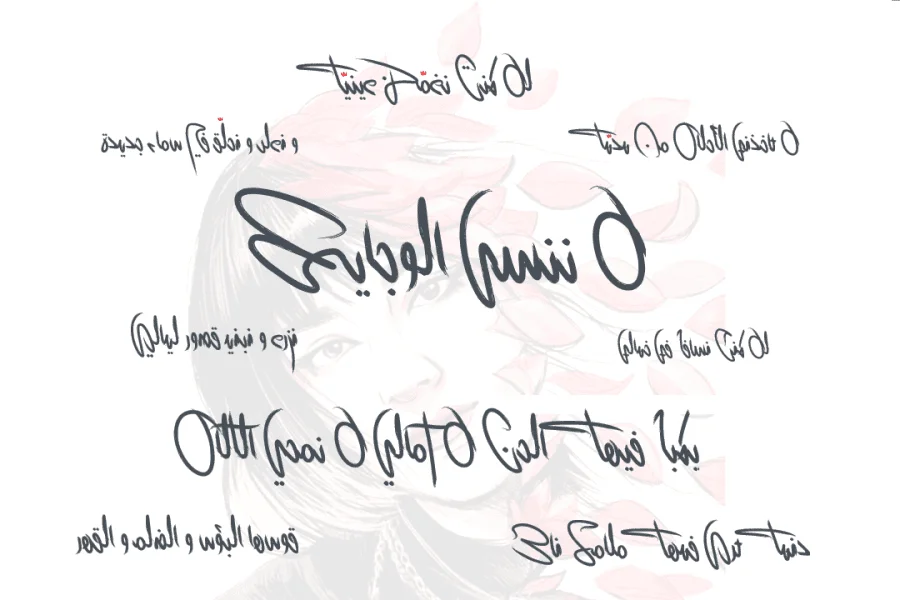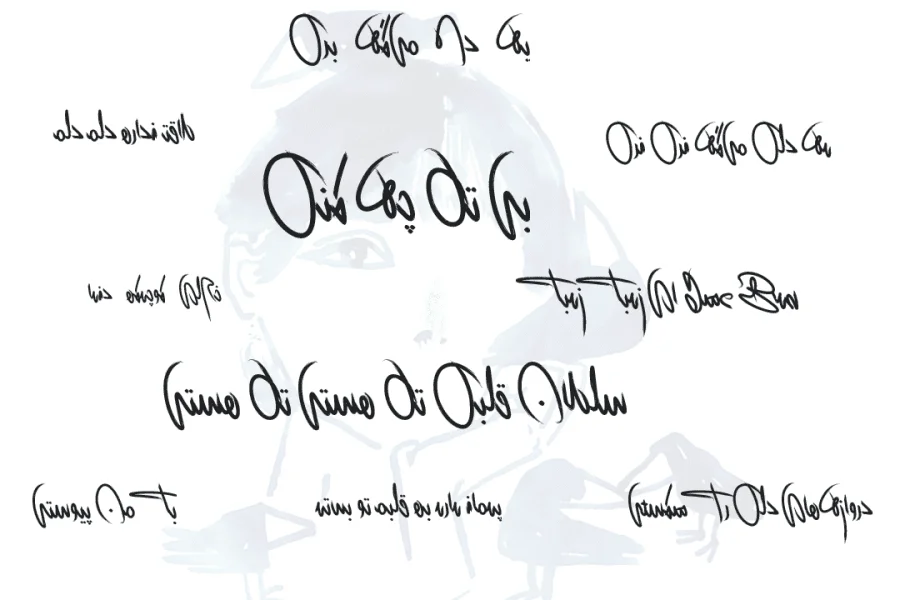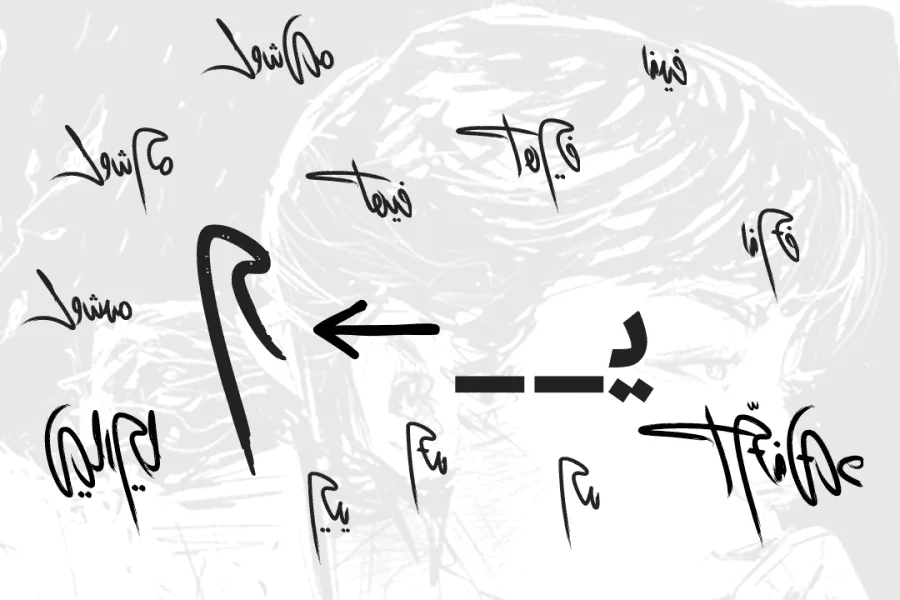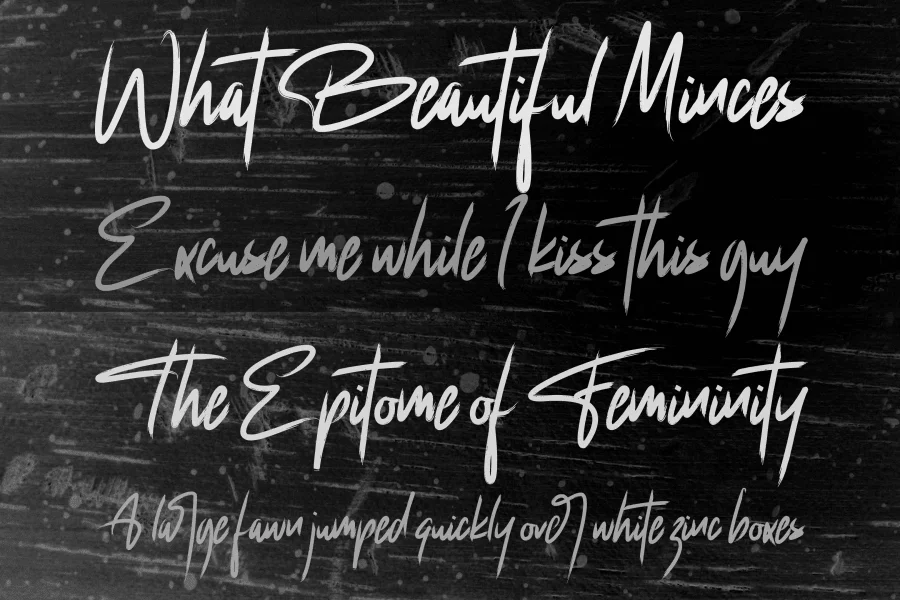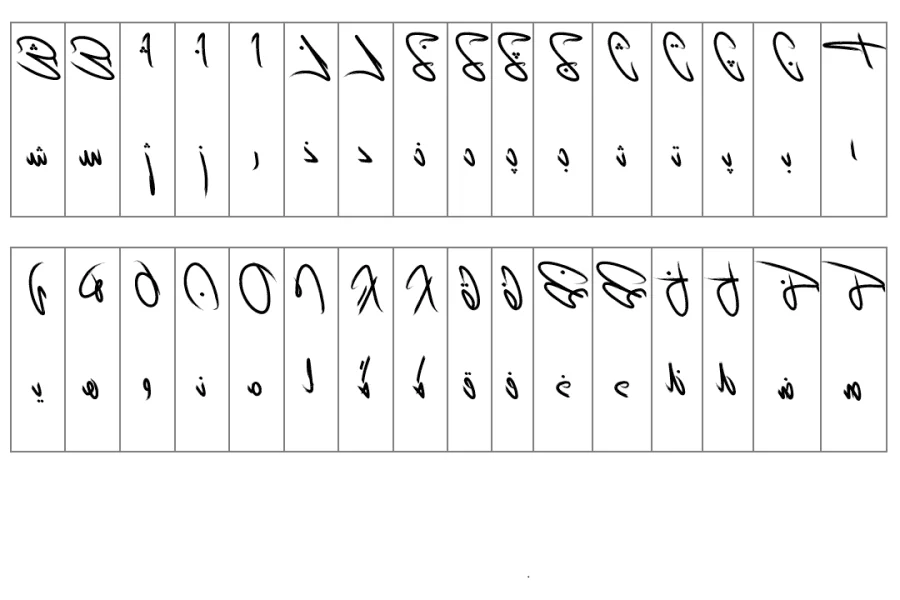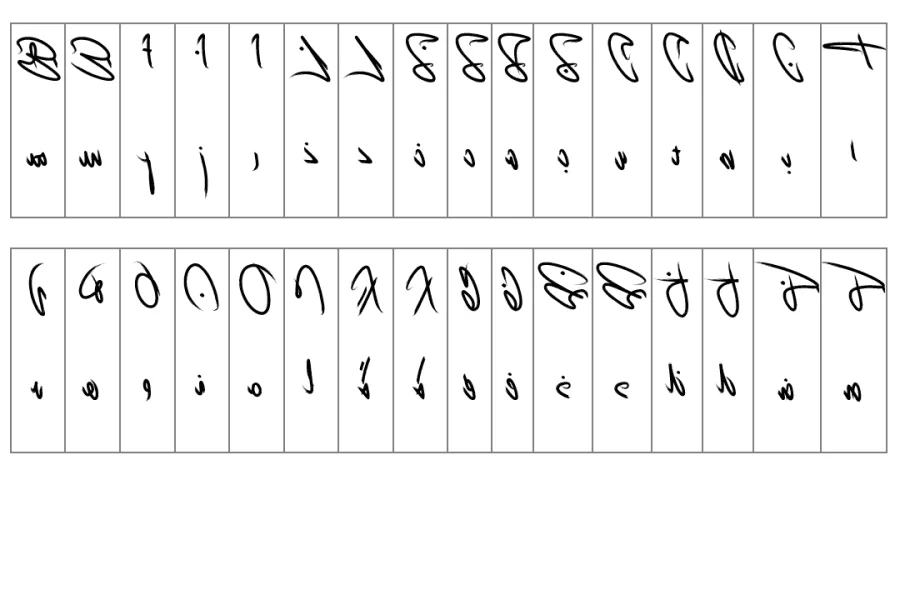
NiSha (نیشا, Gemma and also Cue "in memory of Nika Shakarami") includes three styles that enhance the nikasha font family. The first two styles, nisha Regular and nisha LP Regular, feature a connected design of typical traditional Arabic fonts, while nisha MC Regular maintains a semi-connected style.
The nisha LP (Less Point) refers to a version of the typeface where glyphs that contain two or more dots are replaced with new shapes that do not include any dots.
The nisha MC (Mixed Case) font mimics Latin fonts, enabling typists to choose between lowercase (Initial) and uppercase (Isolated) letters using a software Caps Lock key. This software Caps Lock feature can be activated or deactivated by pressing the Tatweel letter. more…